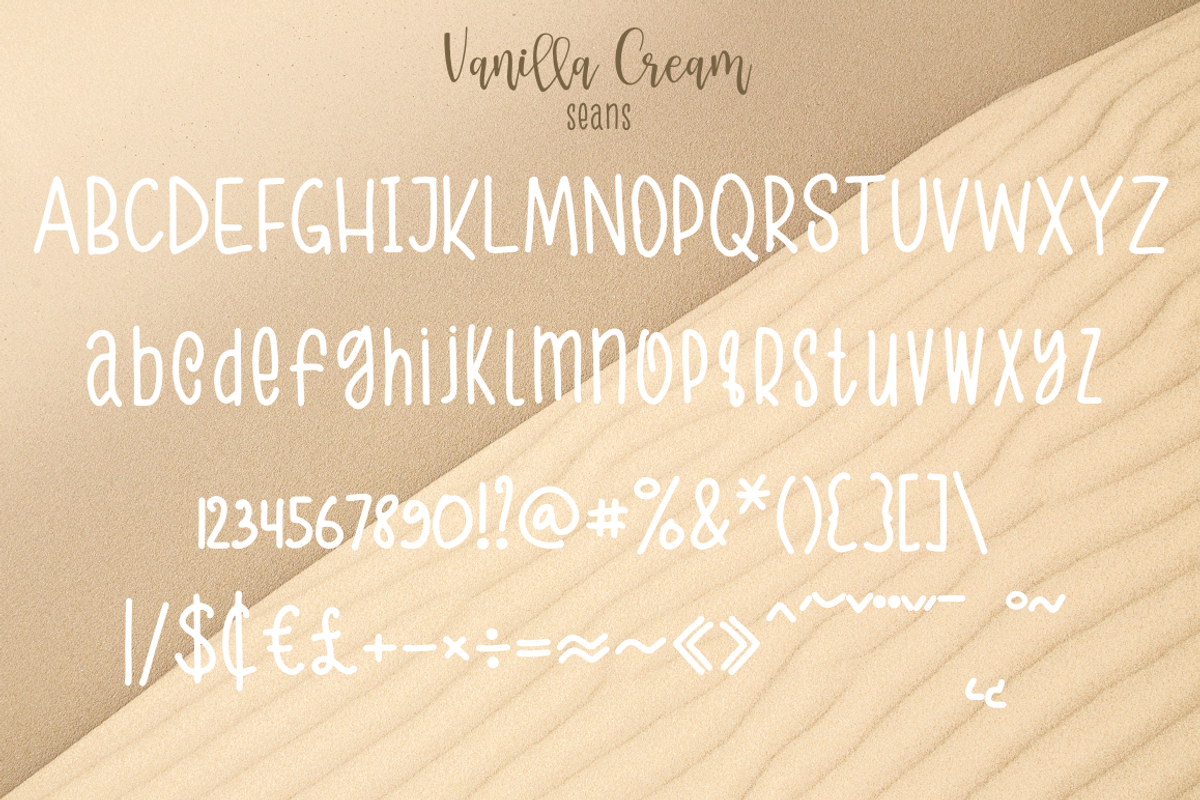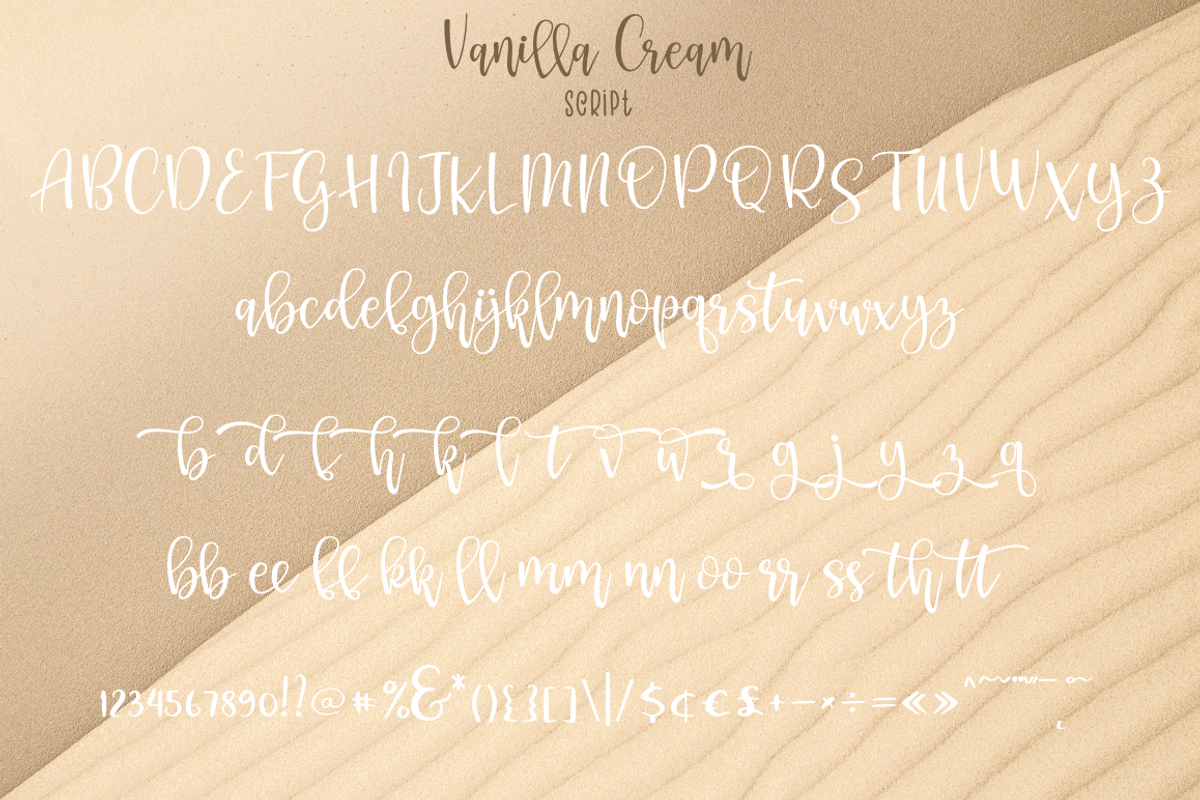
Vanilla Cream
Vanilla Cream- a new modern handmade fonts.
This font is ideal for branding and decorate your any project. Also with their help, you can create a logo or beautiful frame for your home. Or just use for your small business, book covers, stationery, marketing, blog, magazines and more. This font is easy to use has OpenType features and all characters are PUA encoded.
Following international symbols support: ÀÁÂÃÄÅĄÇĆÈÉÊËĘÌÍÎÏÐÑŃŁÒÓÔÕÖØÙÚÛÜŚŠŸÝŹŻŽßàáâãäåçèéêëìíîïðñòóôõöøùúûüýÿąćęłńśšźżž
Full alphabet with Uppercase and Lowercase A-z
Numbers, fractions
Punctuation and symbols